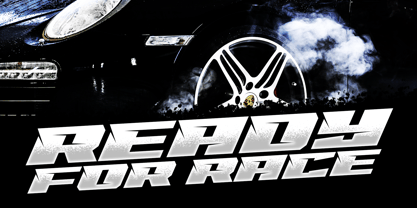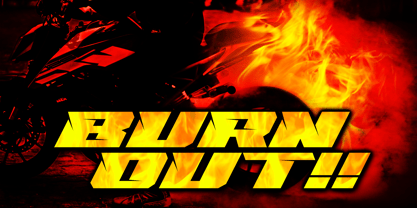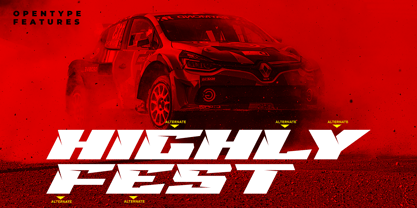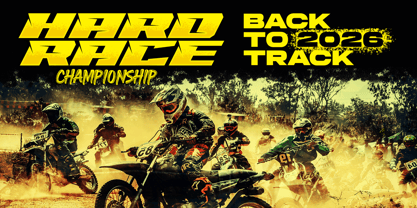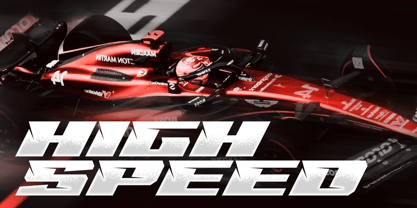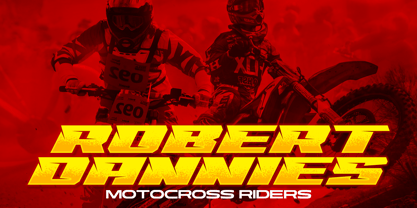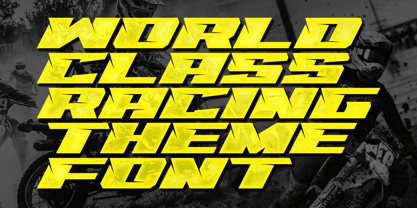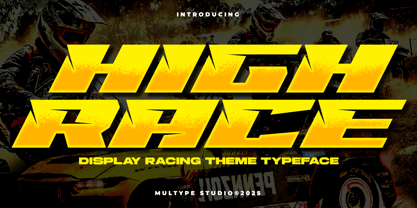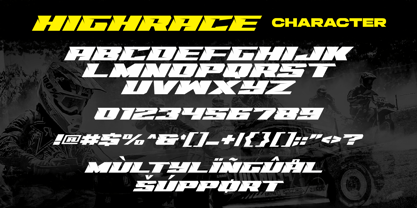
Highrace Racing
by Multype Studio
The Highrace Racing Font Family was designed by Mulia Yanto and published by Multype Studio. Highrace Racing contains 1 styles. More about this family
Highrace Racing Font is a racing-themed font. With a strong, bold style, consistent in sharp corners, and looks good because it maximizes its shape to look strong, fast, and powerful.
Highrace Racing Font it’s perfect for logotype racing product, racing game covers, sports events, automotive posters, automotive magazine covers, branding, product design, labels and other creative project.
• All Caps
• Number
• Punctuation
• Multilingual support
Designers: Mulia Yanto
Foundry: Multype Studio